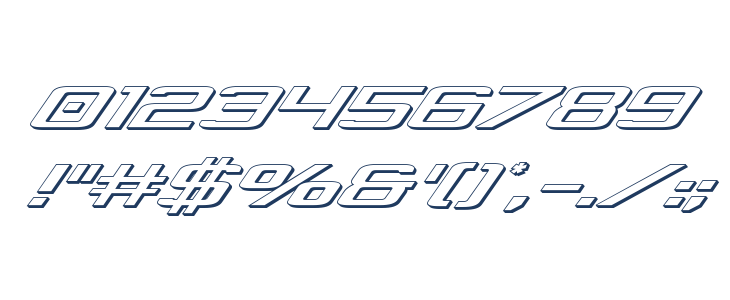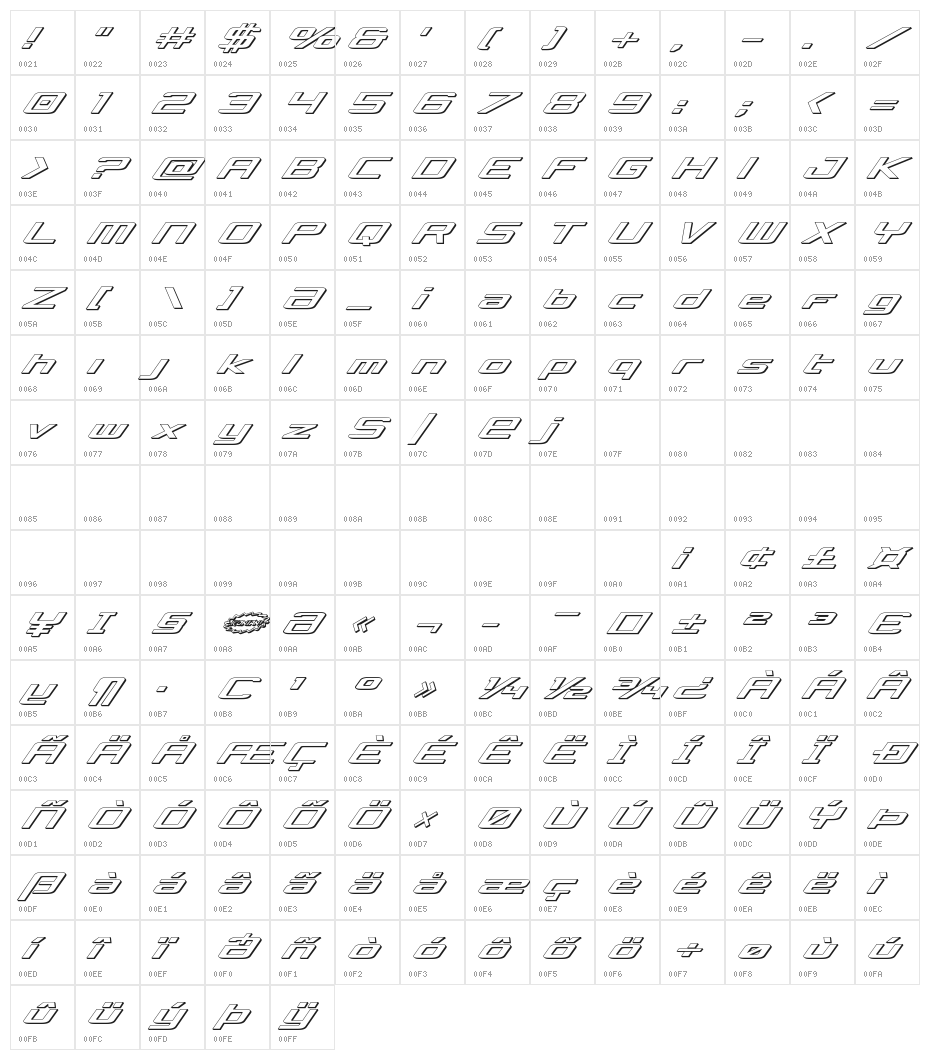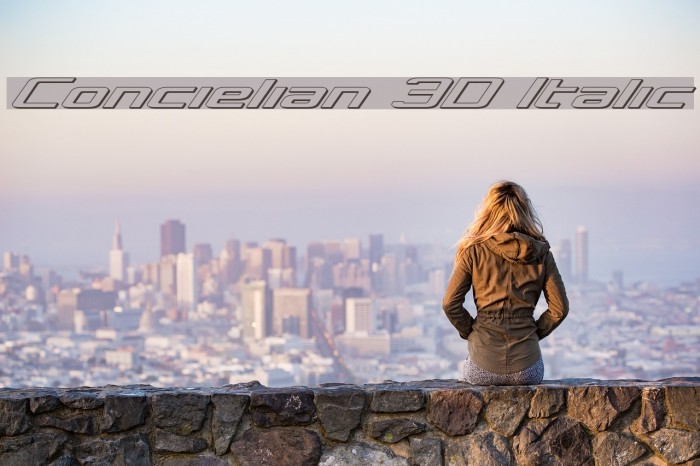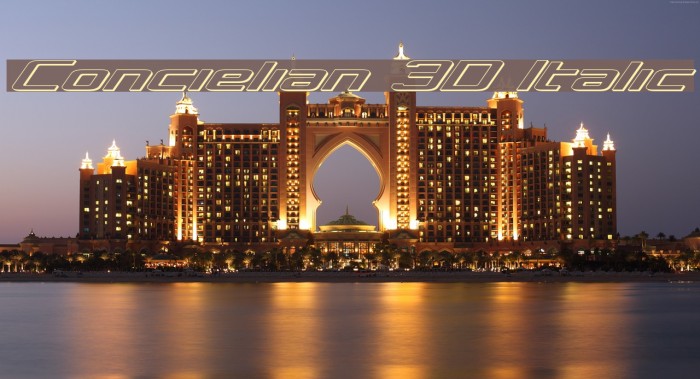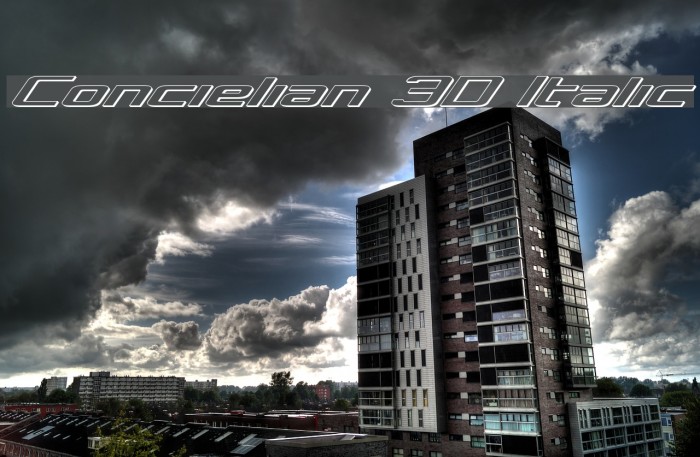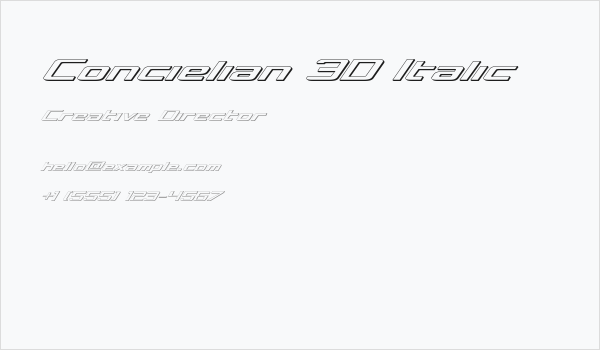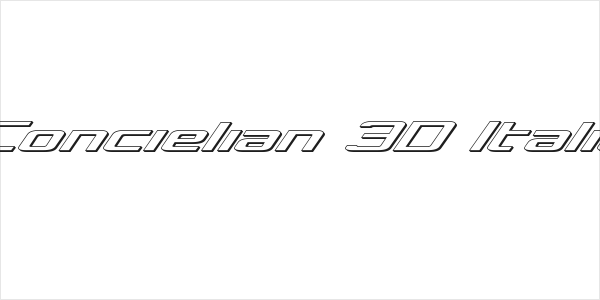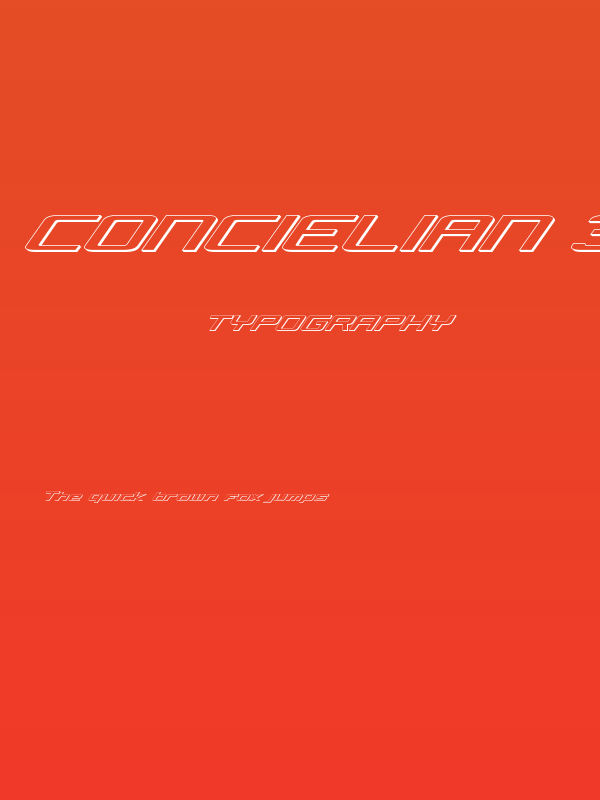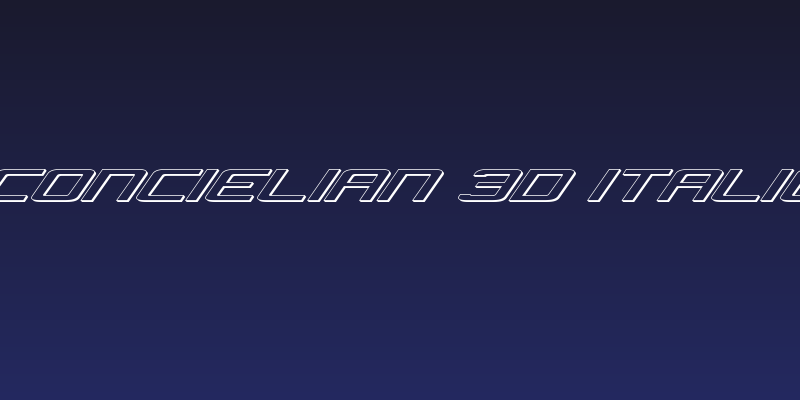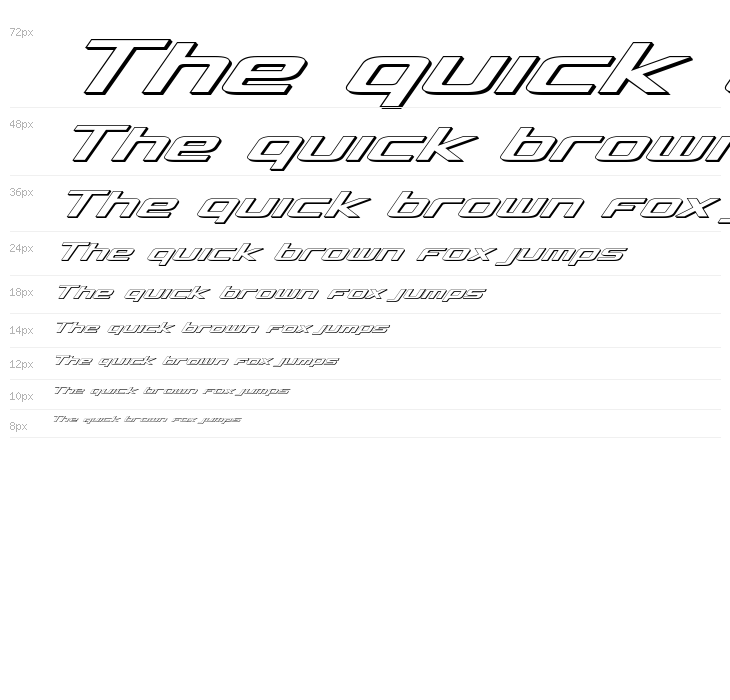
Concielian 3D Italic Font
Concielian 3D Italic Description
This font features a futuristic and dynamic design with a 3D effect that gives each character a sense of depth and movement. The italicized style adds a sleek and forward-leaning appearance, enhancing its modern aesthetic. The characters are outlined, creating a hollow effect that emphasizes the geometric structure of each letter. This font is ideal for projects that require a bold and eye-catching display, such as technology branding, sci-fi themed designs, or innovative product packaging. The uppercase and lowercase letters maintain consistent styling, ensuring readability while adding a unique flair.
| Proposed Projects | Ideal for technology branding, sci-fi themed designs, innovative product packaging, and dynamic headlines. |